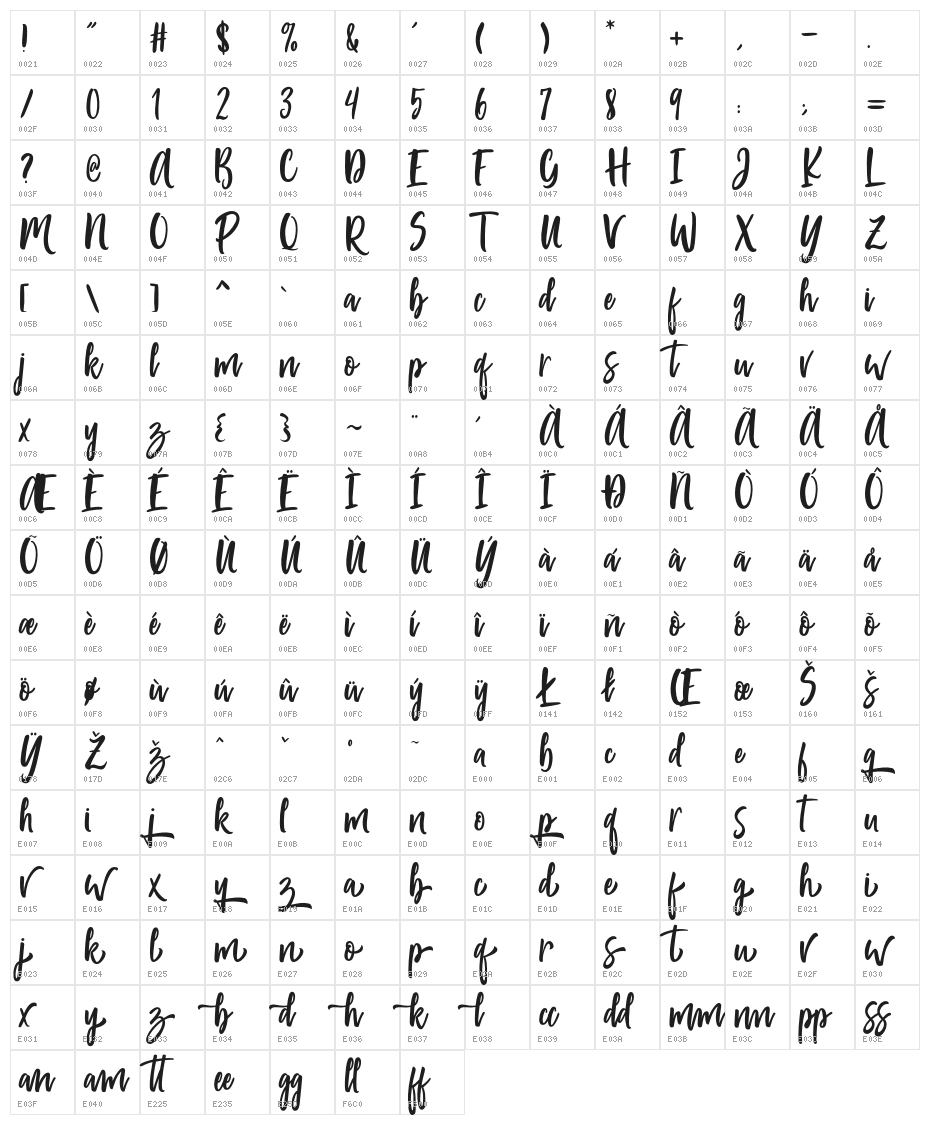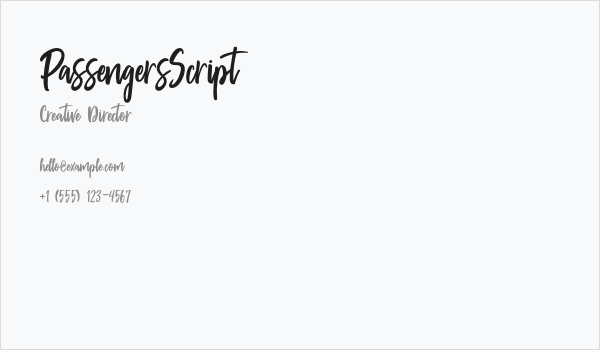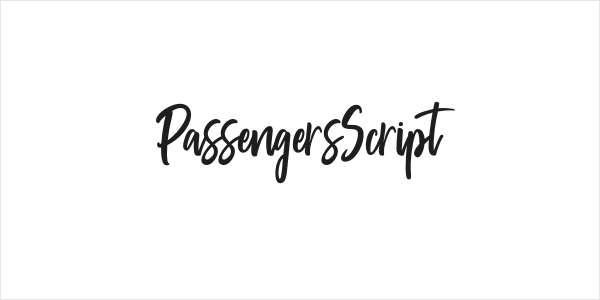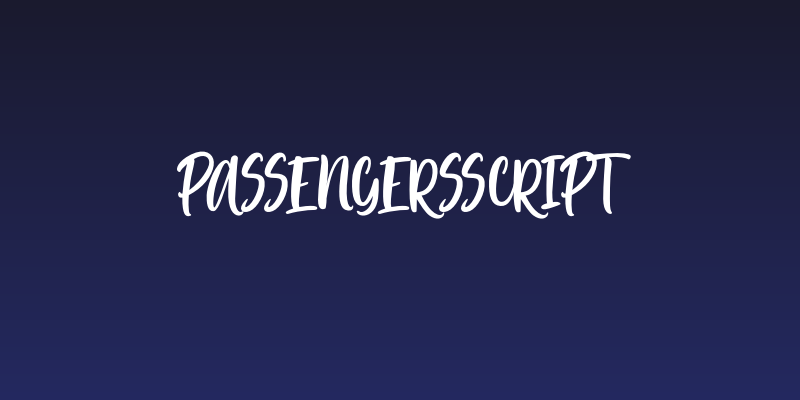
PassengersScript Font
PassengersScript Description
This font features a lively and dynamic script style, characterized by its bold and flowing strokes. The letters are interconnected, creating a sense of movement and fluidity. The uppercase letters are slightly more structured, while the lowercase letters exhibit a more casual and handwritten feel. The numbers and special characters maintain the same energetic style, making them cohesive with the alphabet. This font is perfect for projects that require a personal touch, such as invitations, greeting cards, or branding materials. Its bold presence ensures readability while maintaining an artistic flair.
| Proposed Projects | Ideal for invitations, greeting cards, branding, and artistic projects. |